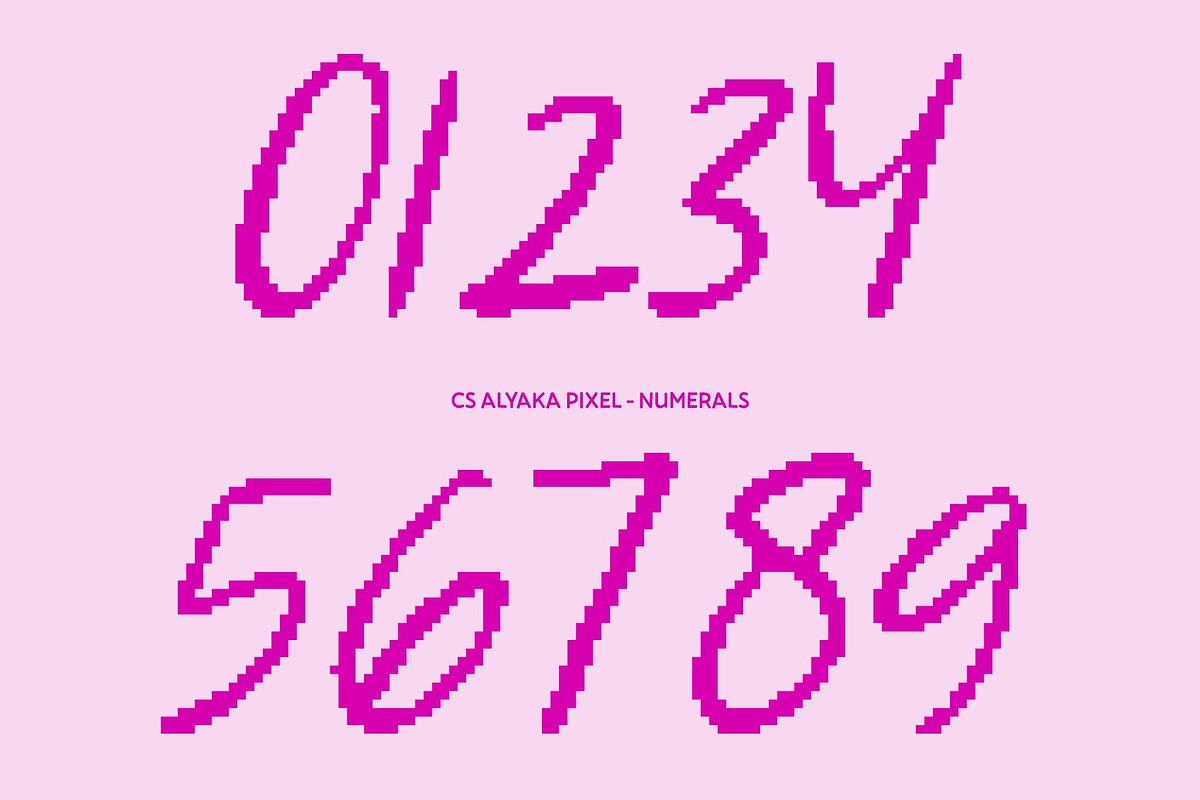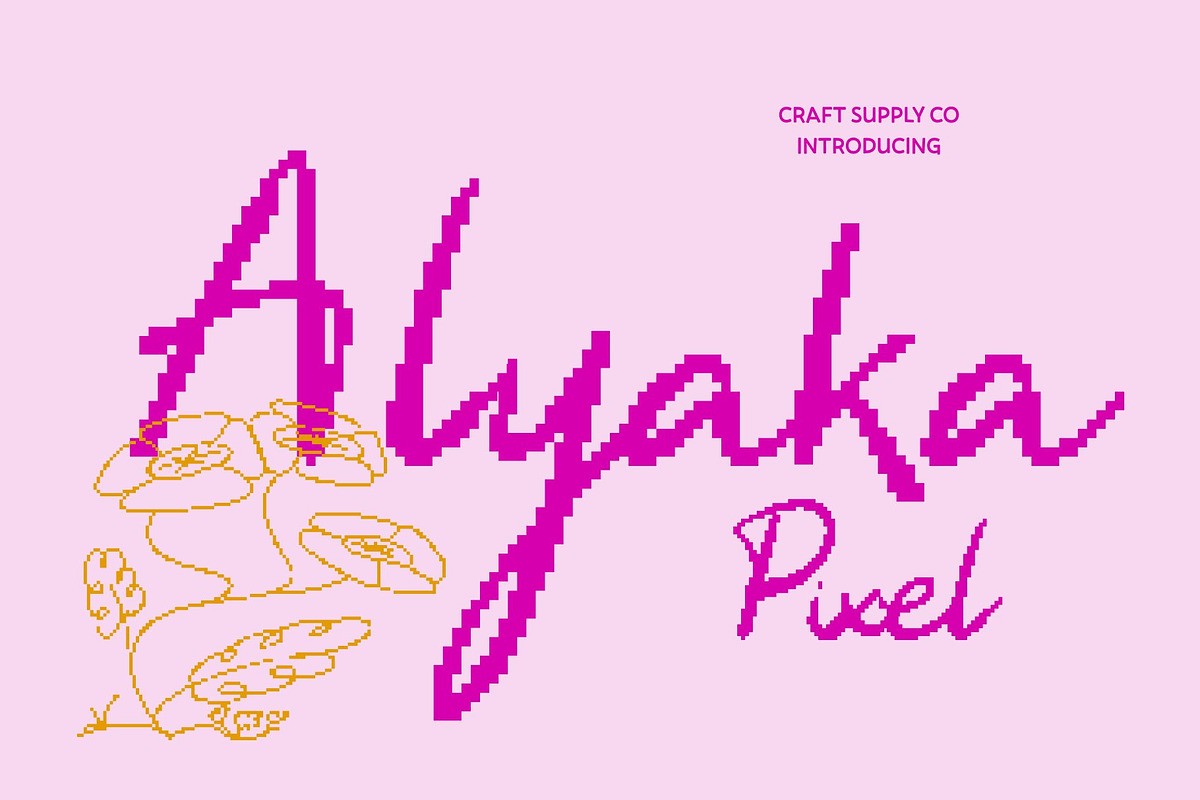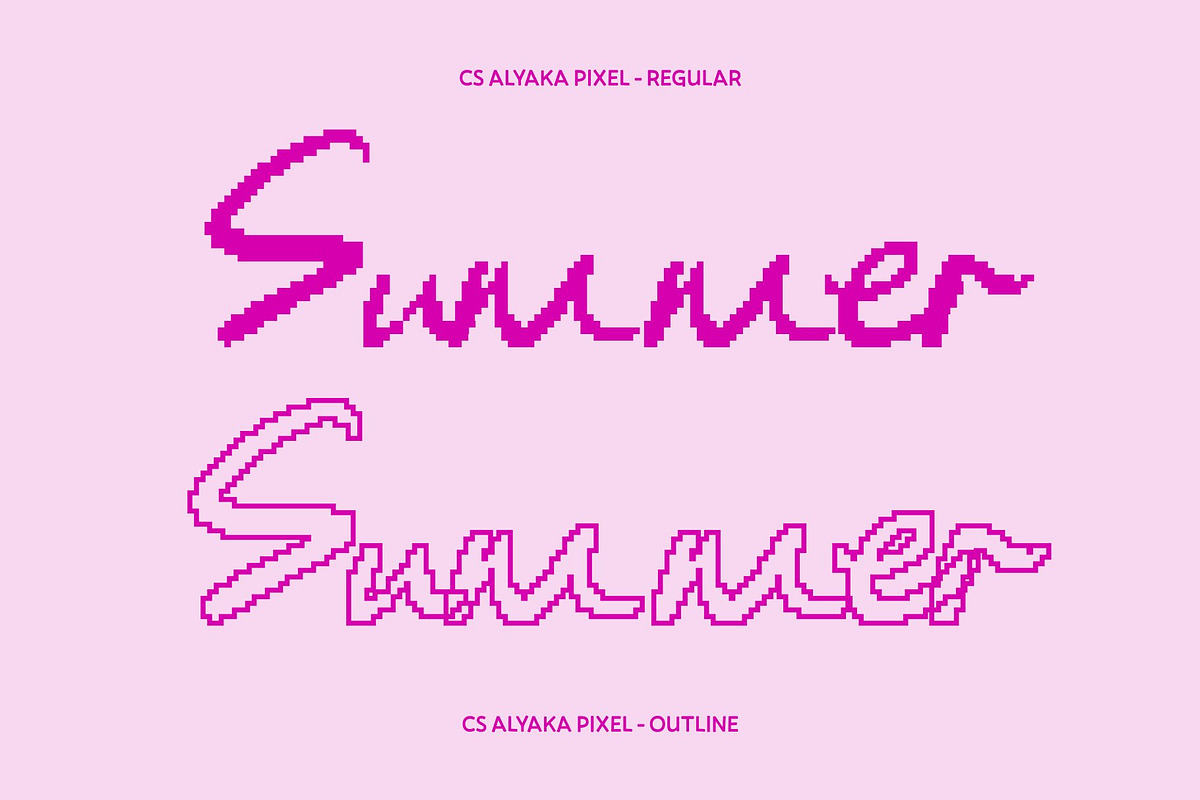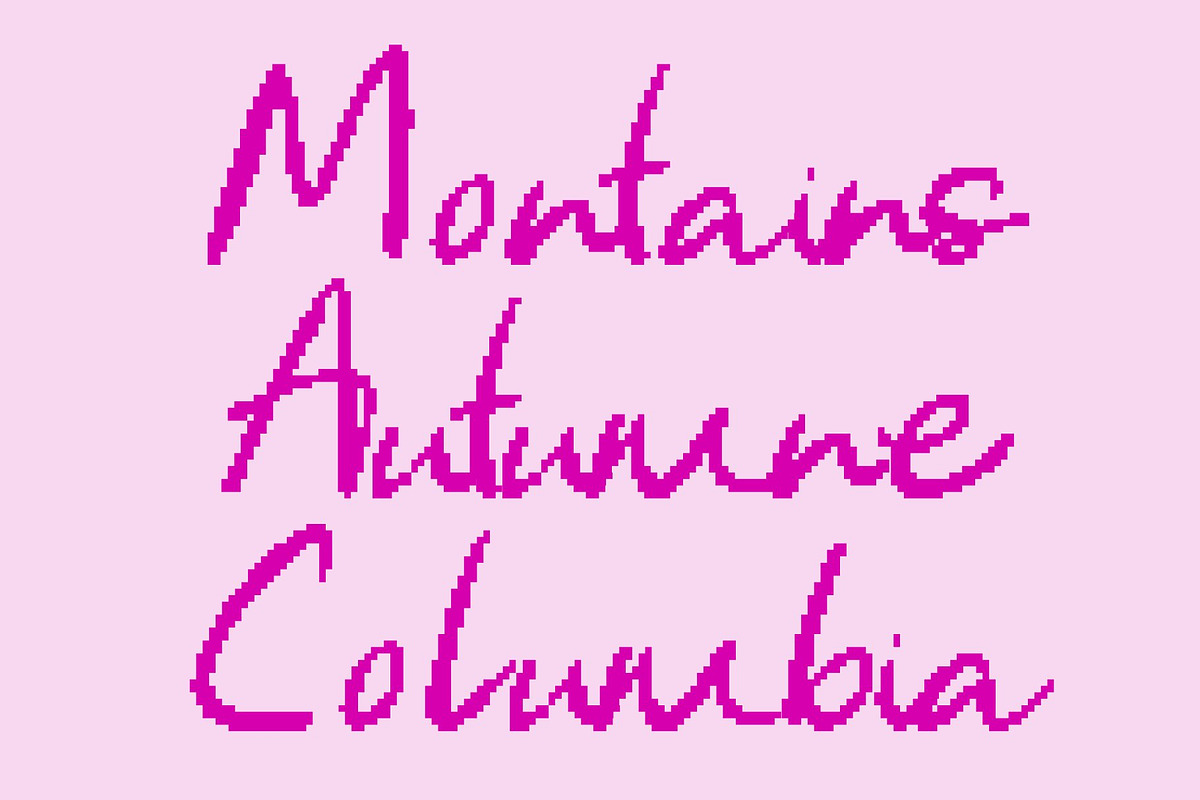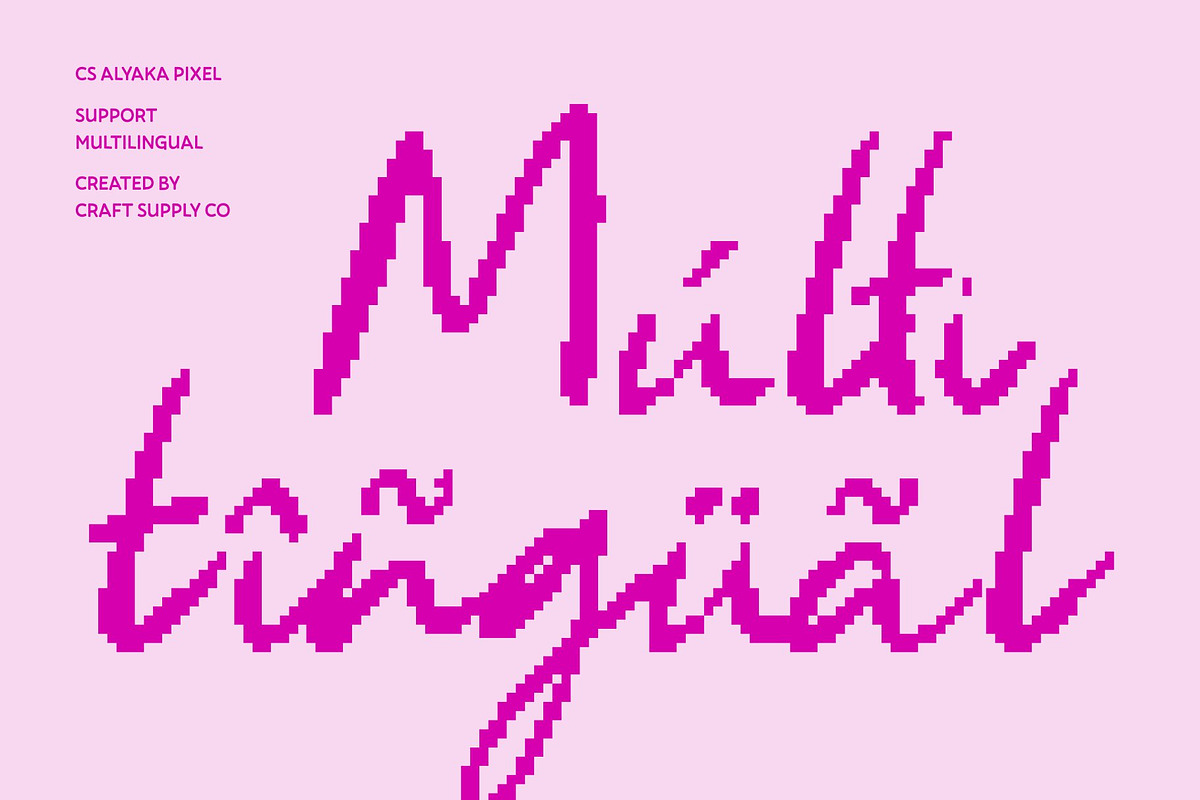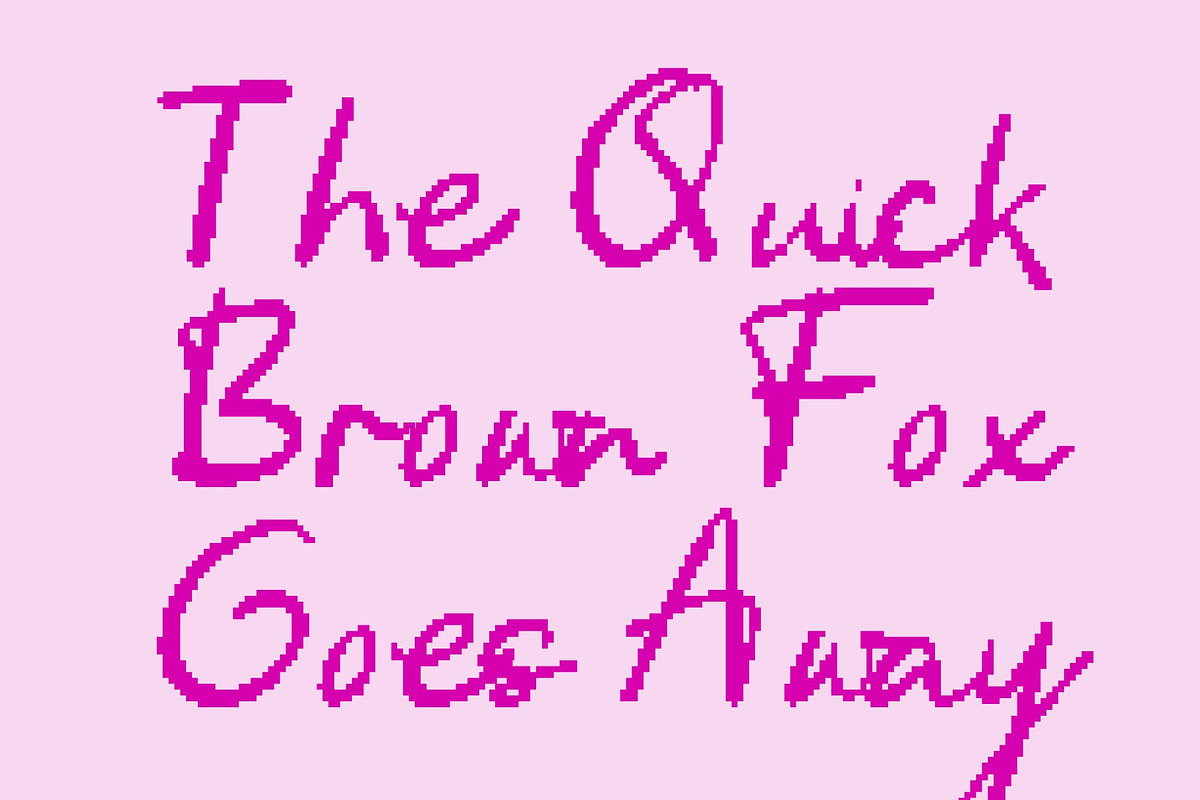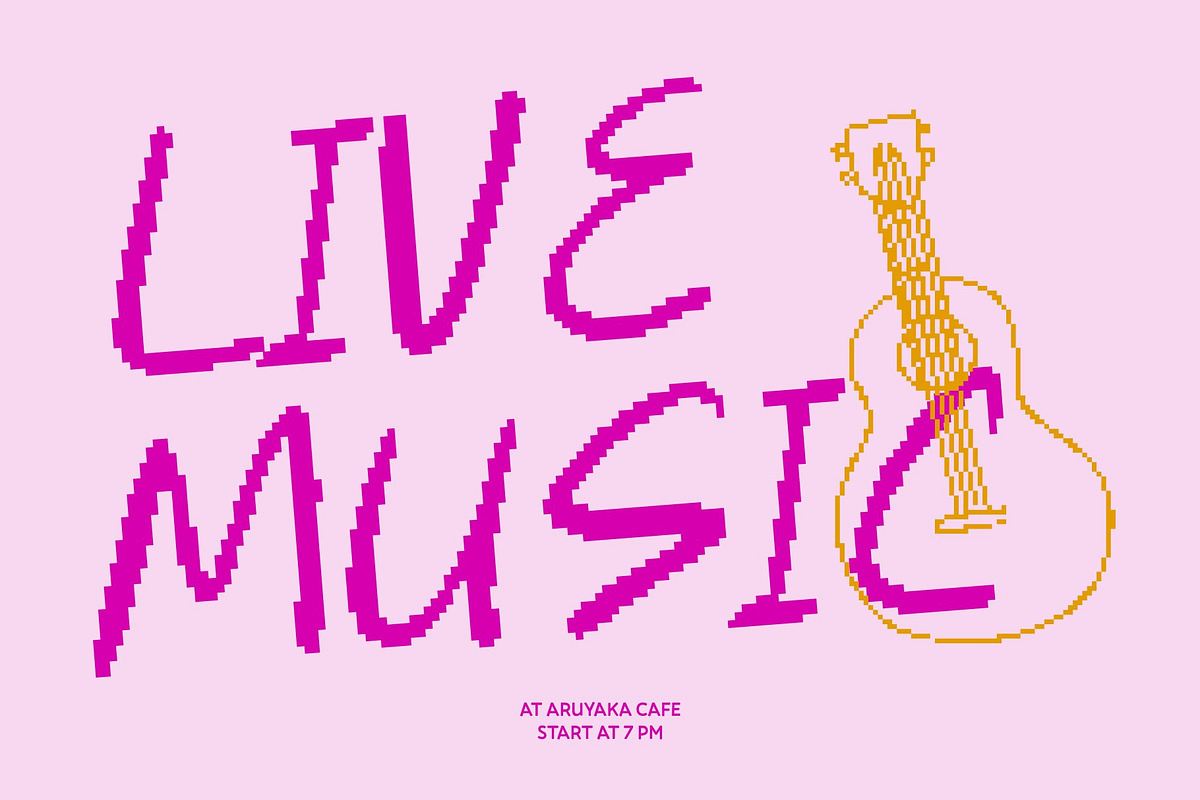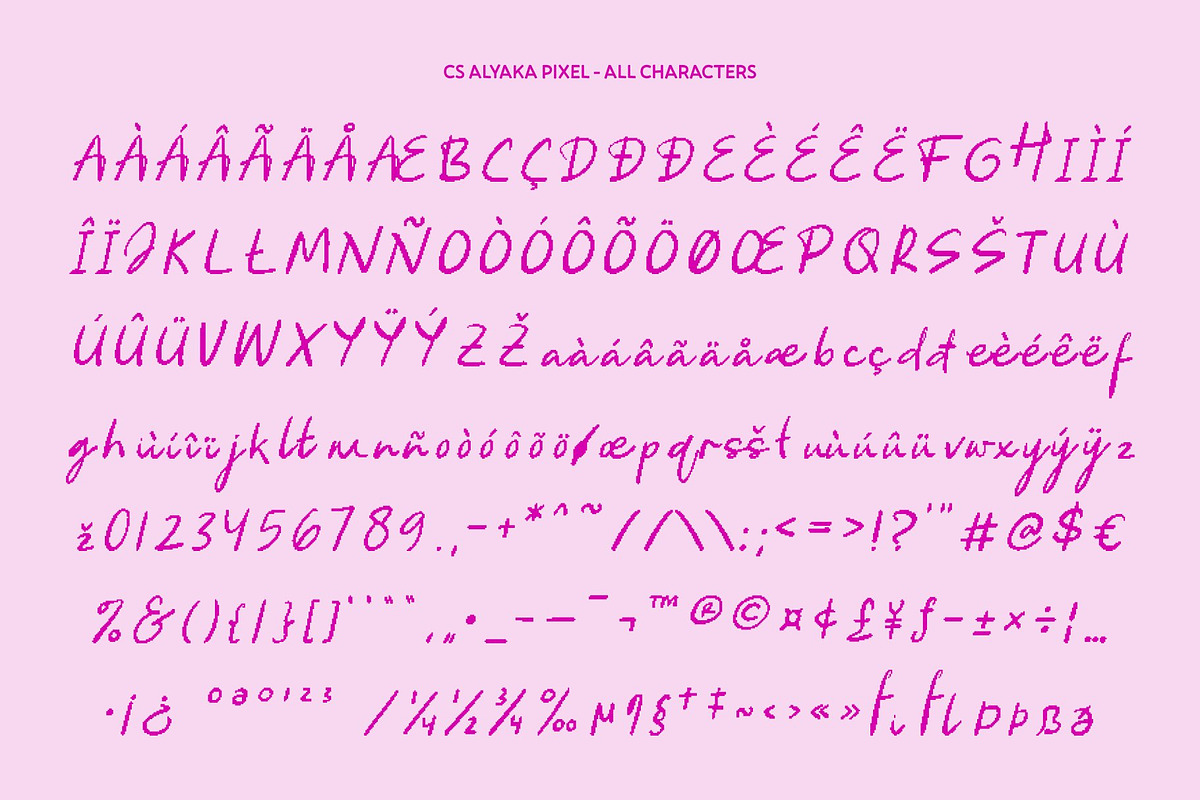
CS Alyaka Pixel
CS Alyaka Pixel – Handwritten Warmth in Retro 8-Bit Style
Pixelated Handwriting Script with Personal Charm This transforms the authenticity and warmth of natural pen strokes into a pixel-perfect, retro-inspired display font. Each letter retains the fluid, organic feel of handwriting, now rendered in crisp 8-bit blocks that give it a playful, vintage digital character. The result is a font that combines personal expression with nostalgic pixel aesthetics, ideal for modern-retro creative projects.
Organic Flow Meets Pixel Precision The smooth, casual curves of this font’s handwritten script style are translated into precise, pixelated forms, preserving its relaxed, friendly personality while adding a distinctive retro-digital charm. Subtle variations and handwritten quirks are maintained within the pixel framework, giving the font character and warmth without sacrificing readability.
Casual and Approachable Retro Style By merging authentic handwriting with pixelated structure, this font brings a friendly, human touch to digital designs. Its retro 8-bit style evokes nostalgia, while its natural flow makes it perfect for approachable, expressive applications.
Perfect for Fun, Personal, and Creative Designs Ideal for greeting cards, invitations, playful branding, journals, or social media graphics, this font adds personality and charm with a modern-retro twist. This font is perfect for projects that want to feel personal, warm, and delightfully 8-bit.
- CS Alyaka Pixel Regular
- CS Alyaka Pixel Outline